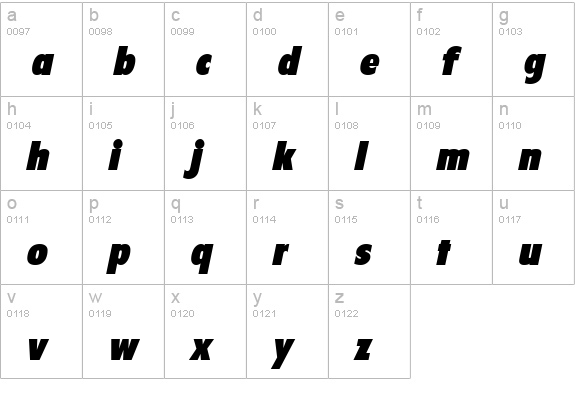
FloridaSerial-Black-Italic is a maximum-weight, dramatic, italic variant in the FloridaSerial typeface family \xE2\x80\x94 well suited to maximum-impact headlines, posters, and packaging.
FloridaSerial-Black-Italic is a bold and stylish font that exudes sophistication and elegance. Its sleek and modern design makes it perfect for a wide range of projects, from branding to editorial design. The italicized version adds a touch of flair and drama to any text, making it stand out and captivate the reader's attention. This font is not only visually striking, but also highly versatile, suitable for both print and digital applications. Whether you're creating a poster, website, or logo, FloridaSerial-Black-Italic will give your design a professional and polished look. The best part? FloridaSerial-Black-Italic is available for free download at FontsMarket.com, so you can easily incorporate this stunning font into your projects without breaking the bank. Don't miss out on the opportunity to elevate your designs with this beautiful typeface!